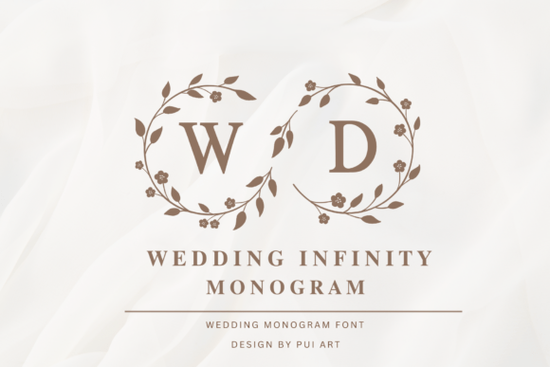
If you're designing wedding stationery whether for your own big day, a client, or a print-on-demand shop the Wedding Infinity Monogram Font is one of those quiet standouts: elegant without being fussy, decorative without sacrificing readability, and versatile enough to work on digital invites, foil-stamped cards, or even fabric banners. It’s not just another script font it pairs each letter with delicate floral framing and an infinity loop motif, giving monograms a soft, timeless feel that suits modern and traditional weddings alike.
What makes this font different from other wedding fonts?
Most decorative fonts lean heavily into either florals or monogram structure but Wedding Infinity blends both thoughtfully. Each uppercase letter sits centered inside a circular frame filled with subtle botanical line work: think tiny vines, open blossoms, and gentle curves not dense filler, but intentional negative space that keeps the design breathable. That balance means it scales well: small at 18pt on a place card, still legible; large at 200pt as a backdrop for a photo booth sign, still refined.
Unlike some monogram fonts that lock letters into rigid pairings (like “A+B” only), this one gives you full alphabet access including lowercase, numbers, and basic punctuation so you can personalize names, dates, or short phrases without switching fonts mid-design. And because it’s a single-line, clean vector outline (not a raster image), it cuts cleanly on Cricut and Silhouette machines, and holds up in embroidery digitizing software when converted properly.
Where does it fit alongside other decorative fonts?
None of these replace Wedding Infinity they complement it. You might use Wedding Infinity for the couple’s initials on the front of an invitation suite, then switch to New Moon for the RSVP card’s “Kindly reply by…” line. Or pair it with Scrabble Game Font for a custom crossword puzzle welcome sign at the reception. The key is consistency in tone, not uniformity in style.
Who actually uses this font and how?
Small business owners running Etsy shops often license Wedding Infinity for editable Canva templates especially “print-at-home” wedding kits where buyers customize names and dates. Crafters use it for hand-lettered chalkboard signs, laser-cut wooden place cards, or heat-transfer vinyl on linen napkins. Print-on-demand sellers find it works reliably across platforms like Printful and Gelato because its clean outlines render sharply at any DPI setting.
Designers also appreciate that it includes OpenType features like stylistic alternates (so “A” has two versions one with tighter framing, one with looser spacing) and ligatures for common name pairings (“AM”, “EL”, “OL”). These aren’t flashy extras they’re practical tools that save time when fine-tuning spacing or matching letter weights across a monogram.
- Check color contrast: Light gold or blush ink on ivory paper reads beautifully, but avoid pale yellow on cream it can blur the fine lines.
- Use it for more than names: Try “Est. 2024”, “Forever & Always”, or even “RSVP” inside the frame it’s flexible beyond monograms.
- Pair wisely: A simple sans-serif like Montserrat or Lato works best for body text no competing flourishes.
If you’re comparing options, the Wedding Infinity Monogram Font stands out for its clarity and craftsmanship not just how it looks, but how it behaves across tools and materials. It’s been tested by real designers in real production workflows, not just mocked up in Photoshop.
Before finalizing your next wedding design: Open your file, drop in the font at three sizes (12pt, 36pt, 120pt), and check how the floral details hold up on screen and in print preview. If the inner vines stay distinct and the infinity curve feels intentional not cramped or pixelated you’ve picked a font built for longevity, not just trends.